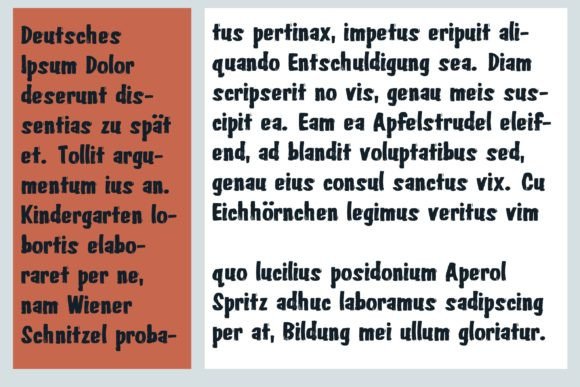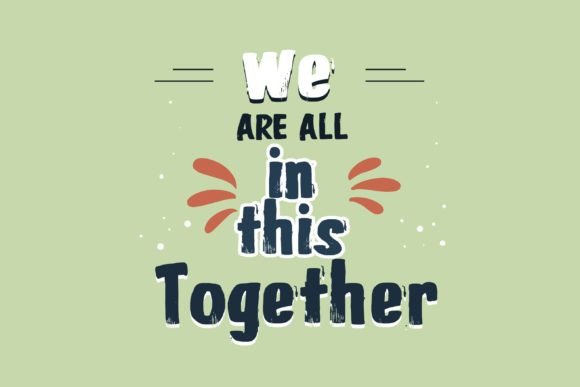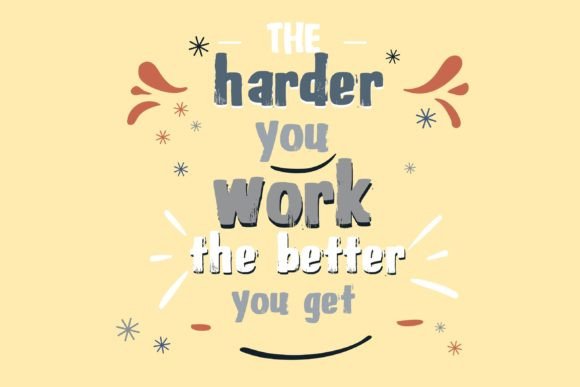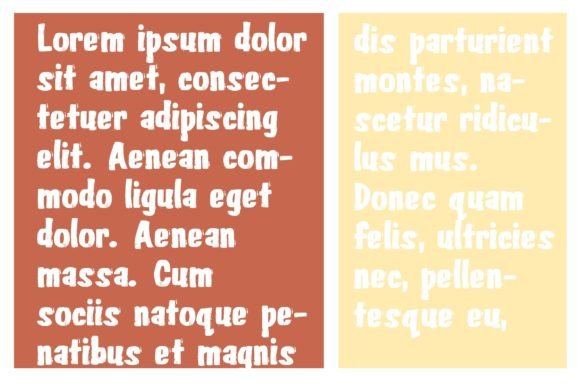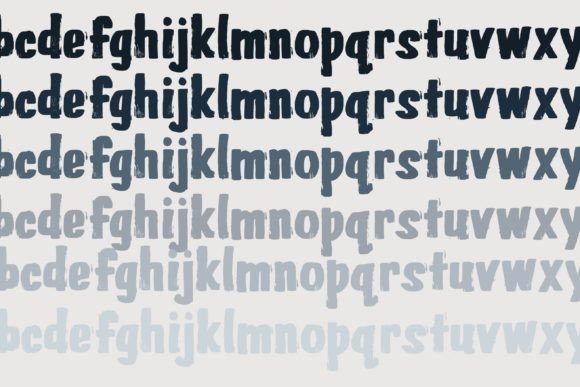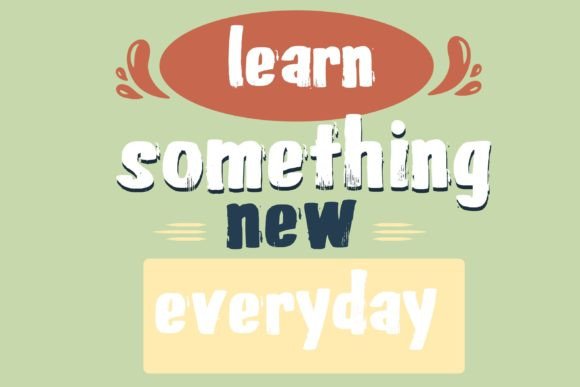
Advertise That Font: The Beauty of Handwritten Fonts
Are you looking for a unique and creative way to add a personal touch to your designs? Look no further than the “Advertise That Font”, a handwritten font that is designed to look like it was written by hand. In this article, we’ll explore the world of handwritten fonts, their uses, and benefits, and why “Advertise That Font” is a popular choice among designers and crafters.
What are Handwritten Fonts?
Handwritten fonts, also known as script fonts, are a type of font that is designed to mimic the look of handwriting. They are often used for invitations, greeting cards, and other items where a personal touch is desired. Handwritten fonts can be either formal or informal, and they can be used for a variety of purposes, from wedding invitations to marketing materials.
The Benefits of Handwritten Fonts
Handwritten fonts offer a number of benefits, including:
- Uniqueness: Handwritten fonts are unique and can add a personal touch to your designs.
- Emotional Connection: Handwritten fonts can create an emotional connection with the reader, making your designs more relatable and engaging.
- Flexibility: Handwritten fonts can be used for a variety of purposes, from formal to informal.
- Creativity: Handwritten fonts offer a lot of creative freedom, allowing you to experiment with different styles and techniques.
What is Advertise That Font?
“Advertise That Font” is a handwritten font that is designed to look like it was written by hand. It is a popular choice among designers and crafters due to its unique and creative style. The font is often used for invitations, greeting cards, and other items where a personal touch is desired.
Why Choose Advertise That Font?
There are several reasons why “Advertise That Font” is a popular choice among designers and crafters:
- Easy to Read: The font is easy to read, making it perfect for body text and headings.
- Versatile: The font is versatile and can be used for a variety of purposes, from formal to informal.
- Unique Style: The font has a unique style that is both creative and eye-catching.
- High-Quality: The font is high-quality and can be used for both print and digital applications.
How to Use Advertise That Font
“Advertise That Font” can be used in a variety of ways, including:
- Invitations: Use the font to create unique and personalized invitations for weddings, parties, and other events.
- Greeting Cards: Use the font to create handmade greeting cards for special occasions.
- Marketing Materials: Use the font to create eye-catching marketing materials, such as brochures and flyers.
- Digital Applications: Use the font to create digital applications, such as social media graphics and email newsletters.
Tips for Using Handwritten Fonts
Here are some tips for using handwritten fonts:
- Keep it Simple: Keep your design simple and avoid clutter.
- Choose the Right Size: Choose a font size that is easy to read.
- Experiment with Colors: Experiment with different colors to add depth and interest to your design.
- Pair with Other Fonts: Pair your handwritten font with other fonts to create a unique and creative design.
In conclusion, “Advertise That Font” is a unique and creative handwritten font that is perfect for designers and crafters looking to add a personal touch to their designs. With its versatility, ease of use, and high-quality style, it’s no wonder why this font is a popular choice among designers and crafters. Whether you’re creating invitations, greeting cards, or marketing materials, “Advertise That Font” is a great choice for any project.